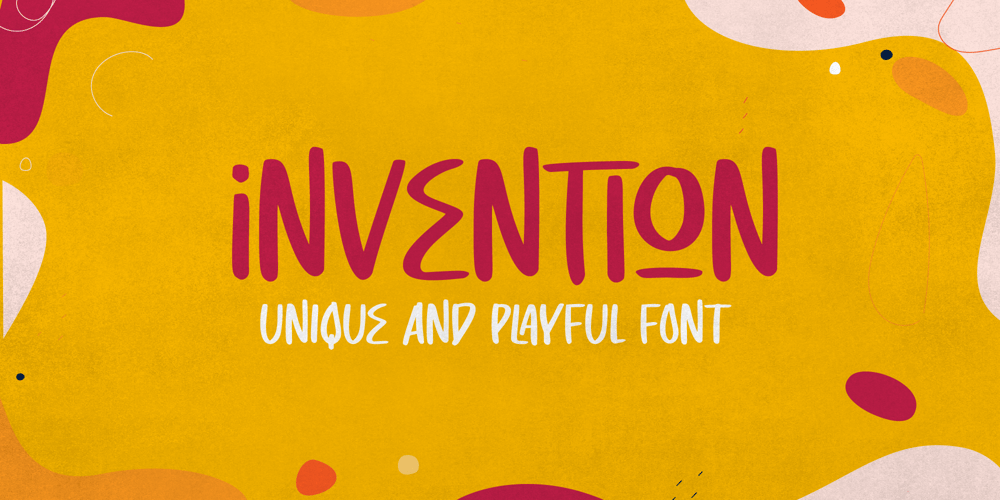
Invention
Invention font
Invention Font Family was designed by Irpan Maulana and published by Create Big Supply. Invention contains 1 styles and family package options. Invention Font is a unique, This will add a very unique and powerful touch to your design. This font is PUA encoded which means you can access all the glyphs and sweeps easily! Features: Uppercase & lowercase Numbers and punctuation Multilingual PUA Encoding Full Character Set!”#$%&()*+,-./0123456789:;=?@ABCDEFGHIJKLMNOPQRSTUVWXYZ[]^_abcdefghijklmnopqrstuvwxyz{|}~ ¡¢£¤¥§©ª«­®°±²³·¹º»¿ÀÁÂÃÄÅÆÇÈÉÊËÌÍÎÏÑÒÓÔÕÖרÙÚÛÜÝÞßàáâãäåæçèéêëìíîïñòóôõö÷øùúûüýþÿıŒœŠšŸž–—‘’‚“”„†•‹›€−